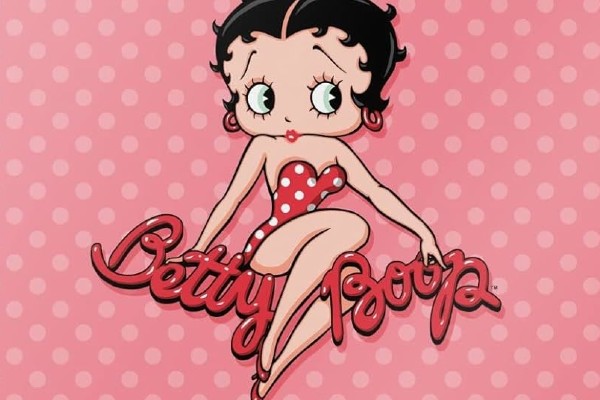
The name of the font that looks most like the lettering used in the official Betty Boop logo is a typeface of the same name simply called Betty Boop (created by font author: anamalmusyaffa). There is no official font - this is a fan created typeface. Luckiest Guy is another popular replica font, and one that you might want to check out. Both of these are available for free below.
Betty Boop is an animated character who was first brought to life during the 1930's as part of a cartoon series called Dizzy Dishes. Over the years her popularity grew and her design also morphed and changed with her. She is probably best known for her big gold hoop earrings, jet black curly hair, red polka dot dress, and her cute button shaped nose.